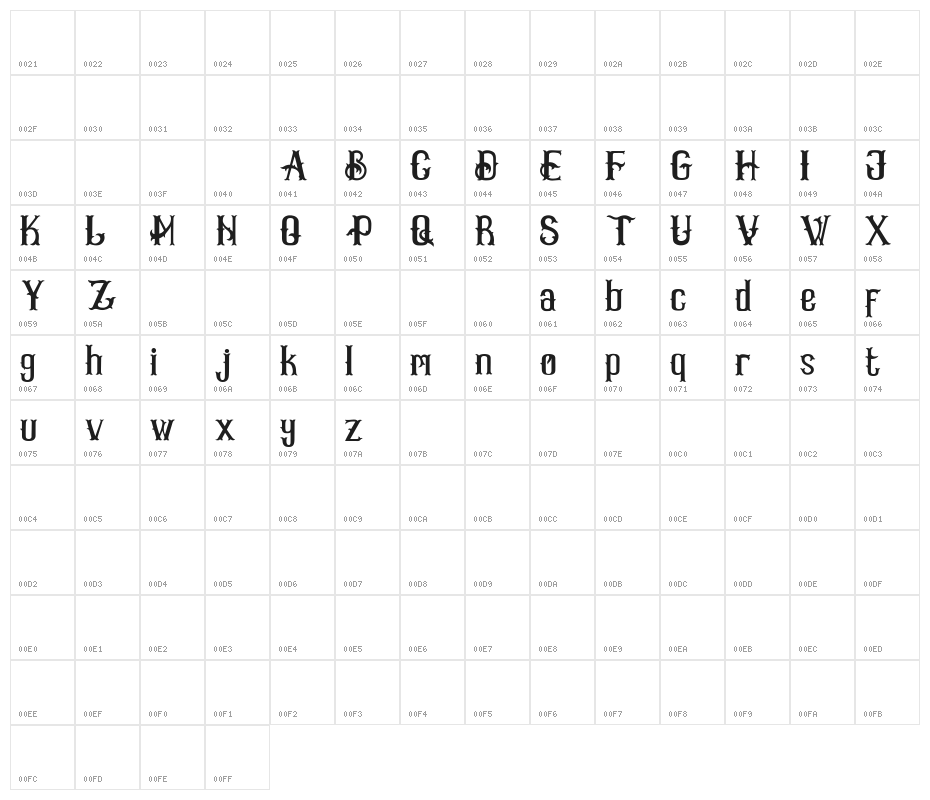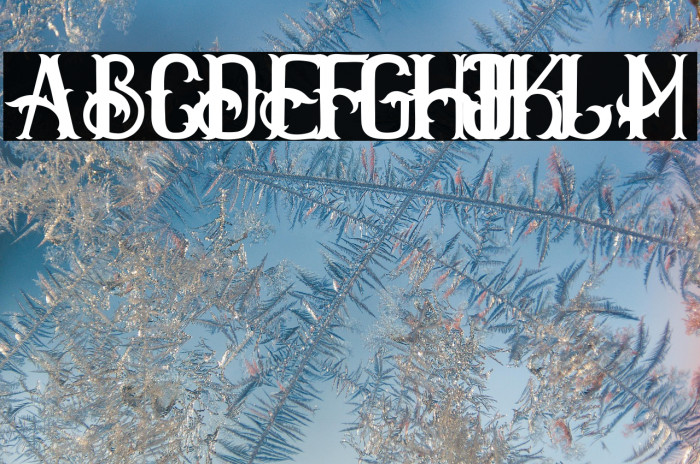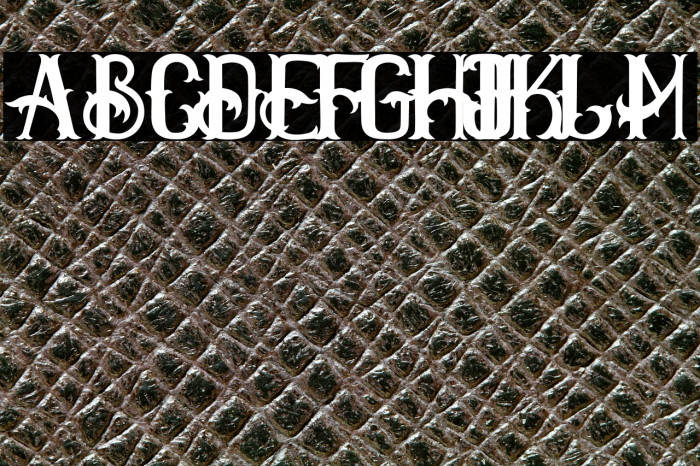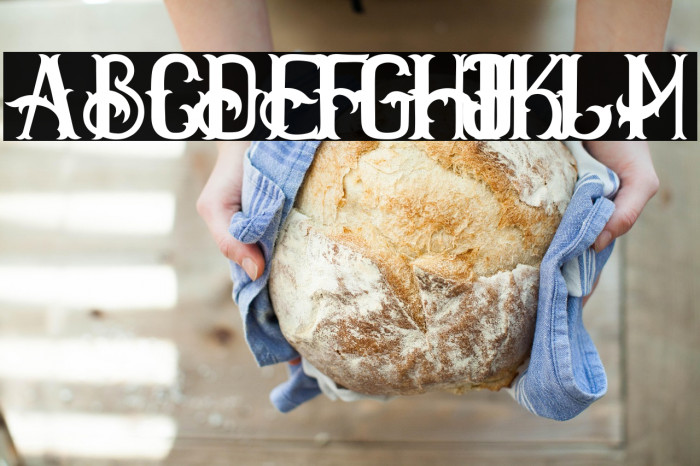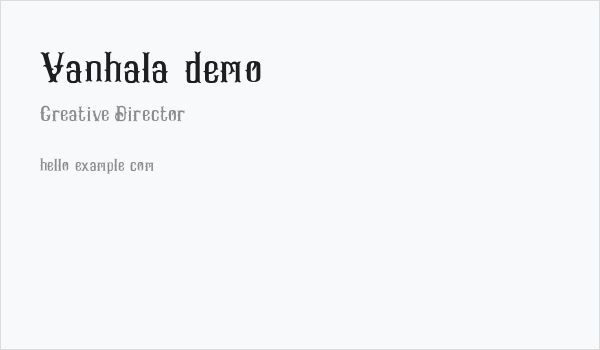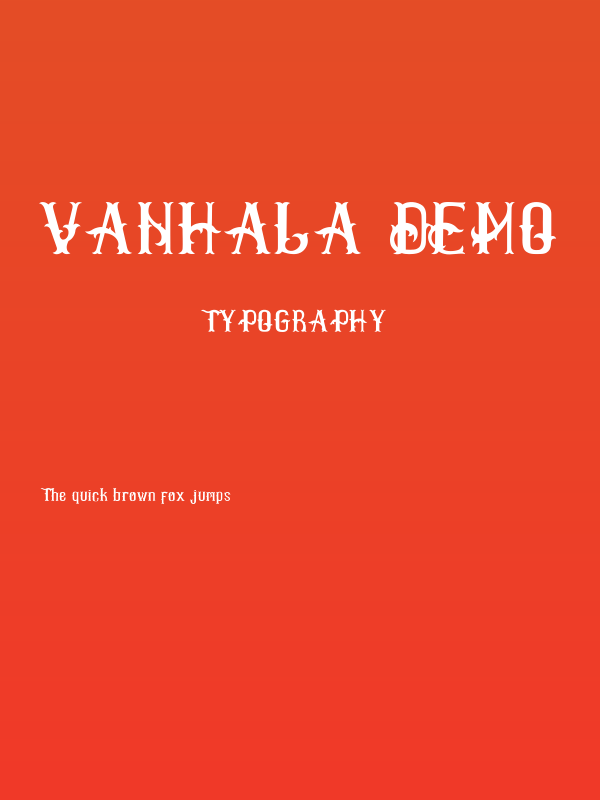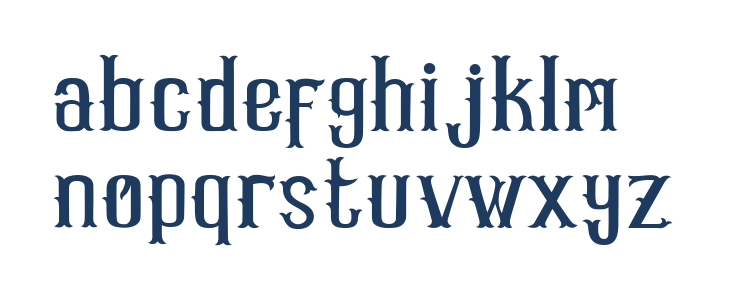
Vanhala-demo Font
Vanhala-demo Description
This font features a distinct and bold design with intricate, decorative elements reminiscent of Gothic or medieval styles. The uppercase letters are particularly elaborate, with sharp serifs and unique flourishes that give each character a dramatic appearance. The lowercase letters maintain the ornate style but with slightly less complexity, ensuring readability while preserving the overall aesthetic. The numbers and special characters are consistent with the font's theme, offering a cohesive look across all glyphs. This font's striking appearance makes it ideal for projects that require a strong visual impact.